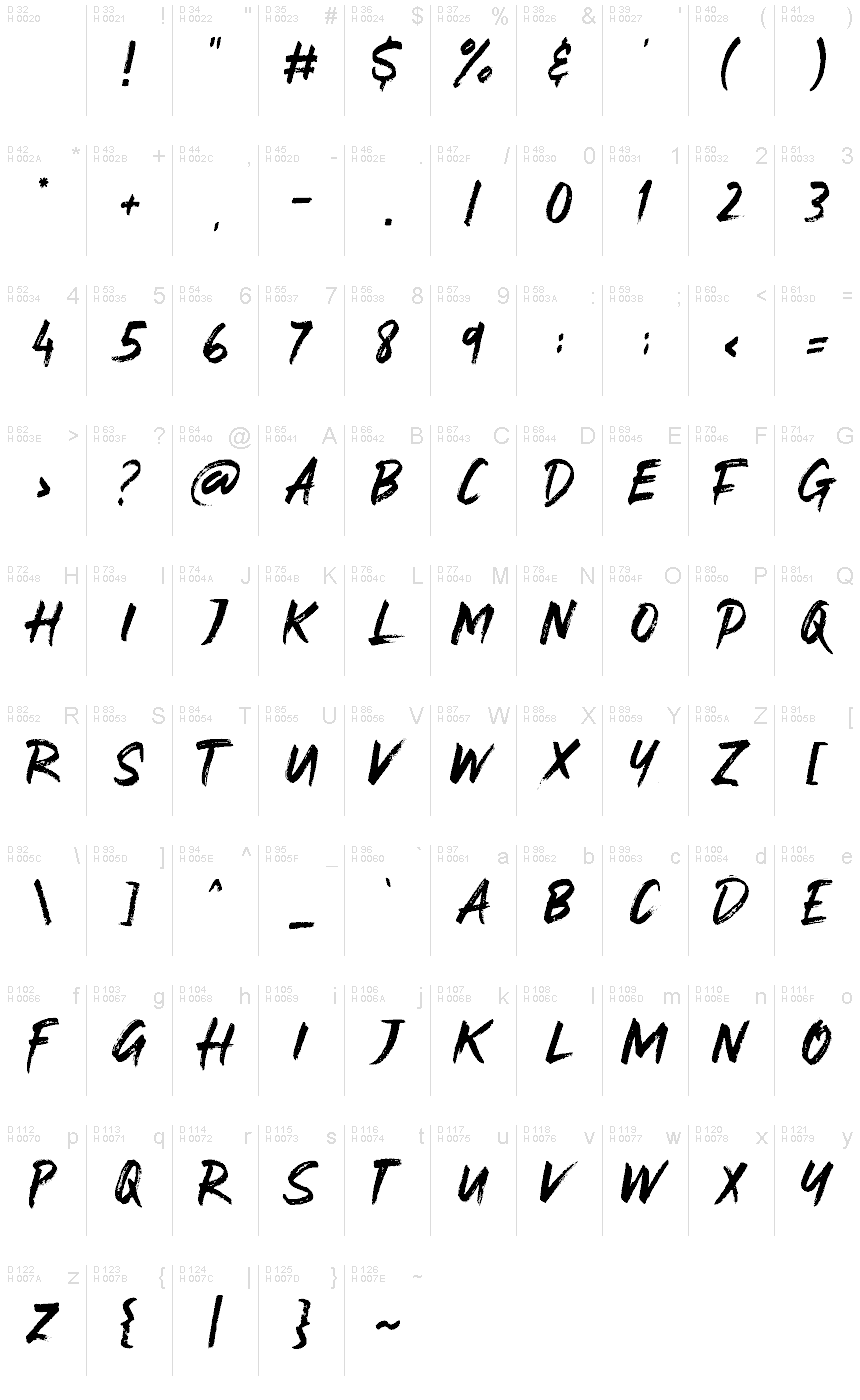
Stay Weird
Stay Weird font by Graphicfresh is a brush typeface that captures an expressive modern aesthetic with its bold strokes and rough texture. Its energetic feel creates a vivid visual impact, perfect for grabbing attention and conveying enthusiasm in any project.
Use this free brush font to design appealing magazine covers, attention-grabbing posters, memorable cards, stand-out titles, branding necessities for any industry or niche, book covers, logotype projects among much more.